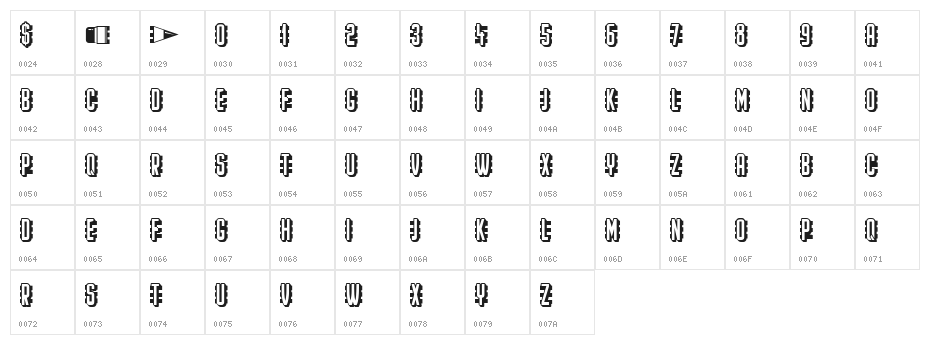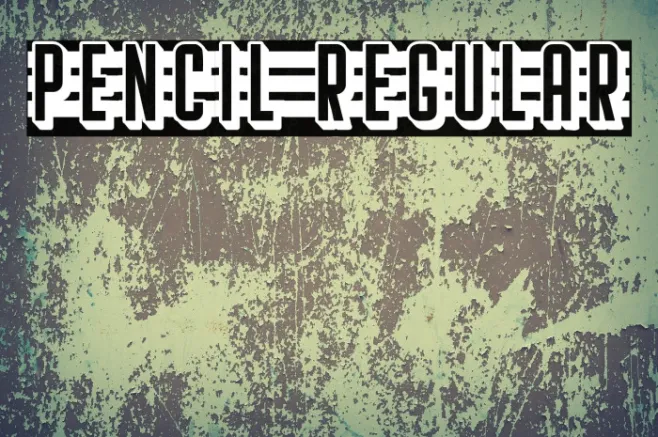
Pencil Regular Font
Pencil Regular Description
This font features a bold, decorative style with a three-dimensional effect, giving it a striking and playful appearance. The characters are outlined with a thick black shadow, creating a sense of depth and making them stand out prominently. The design incorporates geometric shapes and sharp angles, contributing to its modern and dynamic look. The uppercase and lowercase letters maintain a consistent style, with uniform stroke widths and a strong visual presence. Numbers and special characters are designed to match the overall aesthetic, ensuring a cohesive look across all glyphs.
| Proposed Projects | Ideal for posters, headlines, logos, and any project requiring a bold and eye-catching typeface. |